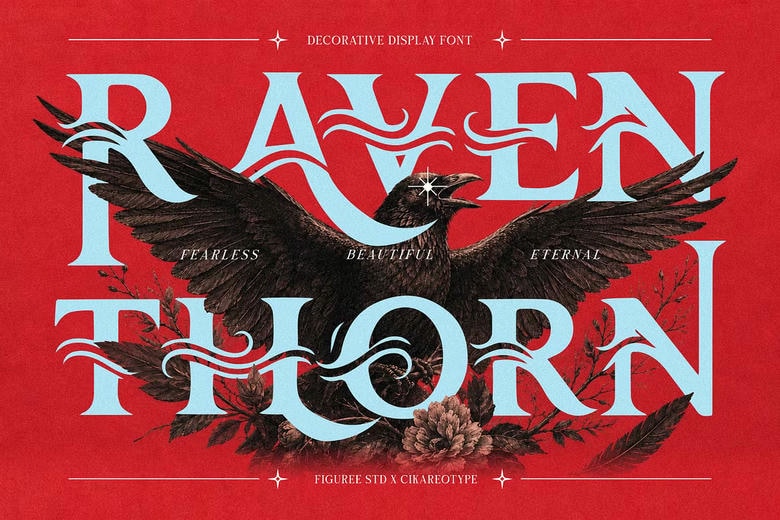
Raventhorn Font
Raventhorn is a display typeface that draws inspiration from classic serif lettering and includes decorative details for a vintage look. It stands out in headlines and expressive designs.
With bold serif shapes and detailed decorative touches, this font is a great option for projects that need a classic look with strong visual impact. Raventhorn is well-suited for book covers, movie posters, historical themes, packaging, greeting cards, signs, and invitations.
Raventhorn Display Font